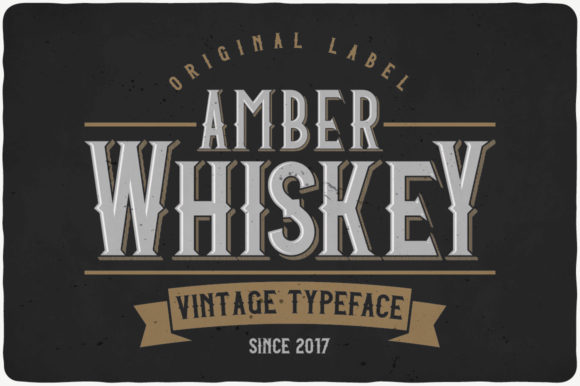
Introducing Amber Whiskey Font: A Bold and Vintage Styled Display Font
Are you a designer or crafter looking for a font that exudes sophistication and elegance? Look no further than Amber Whiskey Font, a bold and vintage styled display font that’s sure to elevate your creations. With its thick lettering and imposing presence, this font is an incredibly valuable asset to any font library.
What is Amber Whiskey Font?
Amber Whiskey Font is a display font designed to make a statement. Its bold, vintage-inspired lettering is perfect for creating eye-catching headlines, titles, and logos that demand attention. The font’s sophisticated and imposing style makes it ideal for a wide range of design projects, from luxury branding and advertising to packaging and signage.
Key Features of Amber Whiskey Font
• Bold and thick lettering: Amber Whiskey Font features lettering that’s both bold and thick, making it perfect for creating eye-catching designs that stand out from the crowd.
• Vintage-inspired style: The font’s vintage-inspired style gives it a unique and distinctive look that’s sure to add a touch of elegance and sophistication to any design.
• Sophisticated and imposing: Amber Whiskey Font is designed to make a statement, with a sophisticated and imposing style that’s perfect for creating designs that demand attention.
• Highly versatile: This font is highly versatile, making it suitable for a wide range of design projects, from luxury branding and advertising to packaging and signage.
Benefits of Using Amber Whiskey Font
• Adds elegance and sophistication: Amber Whiskey Font adds a touch of elegance and sophistication to any design, making it perfect for luxury brands and high-end products.
• Creates eye-catching designs: The font’s bold and thick lettering makes it perfect for creating eye-catching designs that stand out from the crowd.
• Highly legible: Despite its bold style, Amber Whiskey Font is highly legible, making it perfect for use in a wide range of design projects.
How to Use Amber Whiskey Font
• Logos and branding: Use Amber Whiskey Font to create eye-catching logos and branding materials that demand attention.
• Advertising and marketing: The font’s bold and vintage-inspired style makes it perfect for use in advertising and marketing materials, such as billboards, posters, and flyers.
• Packaging and signage: Amber Whiskey Font is also perfect for use in packaging and signage, where its bold and eye-catching style can help to draw attention to your products.
• Digital design: This font can also be used in digital design, such as website headers, social media graphics, and email marketing campaigns.
Font Name Amber Whiskey Font
Author Vozzy Vintage Fonts And Graphics
In conclusion, Amber Whiskey Font is a bold and vintage styled display font that’s perfect for designers and crafters looking to add a touch of elegance and sophistication to their designs. With its thick lettering, imposing presence, and highly versatile style, this font is an incredibly valuable asset to any font library. Whether you’re working on a luxury branding project, creating eye-catching advertising materials, or designing packaging and signage, Amber Whiskey Font is the perfect choice.